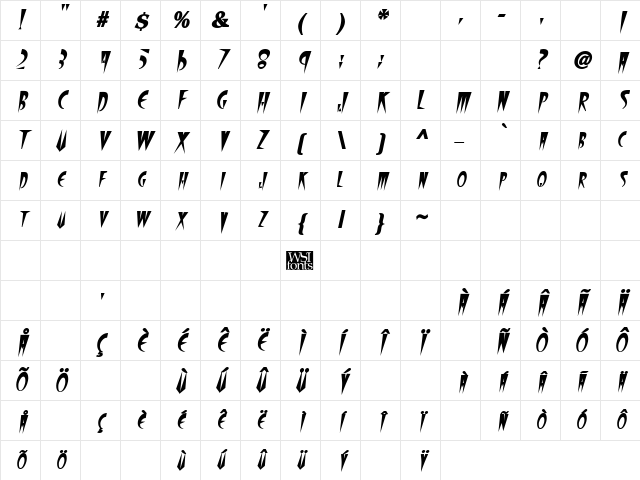
WolfgangCaps Bold Italic Free Font
WolfgangCaps Bold Italic
WolfgangCaps Family
Complete WolfgangCaps Bold Italic glyph index. Displaying only characters natively supported by WolfgangCaps Bold Italic font.
Design Context for WolfgangCaps
WolfgangCaps is a composed and adaptable typeface that performs quietly and consistently across a wide range of design contexts. The slanted form adds forward momentum and visual energy. Its bold stroke weight gives it real presence on the page.
Pro Tip: Use WolfgangCaps for emphasis, pull quotes, and subheadings where its slanted energy can add rhythm to the layout.